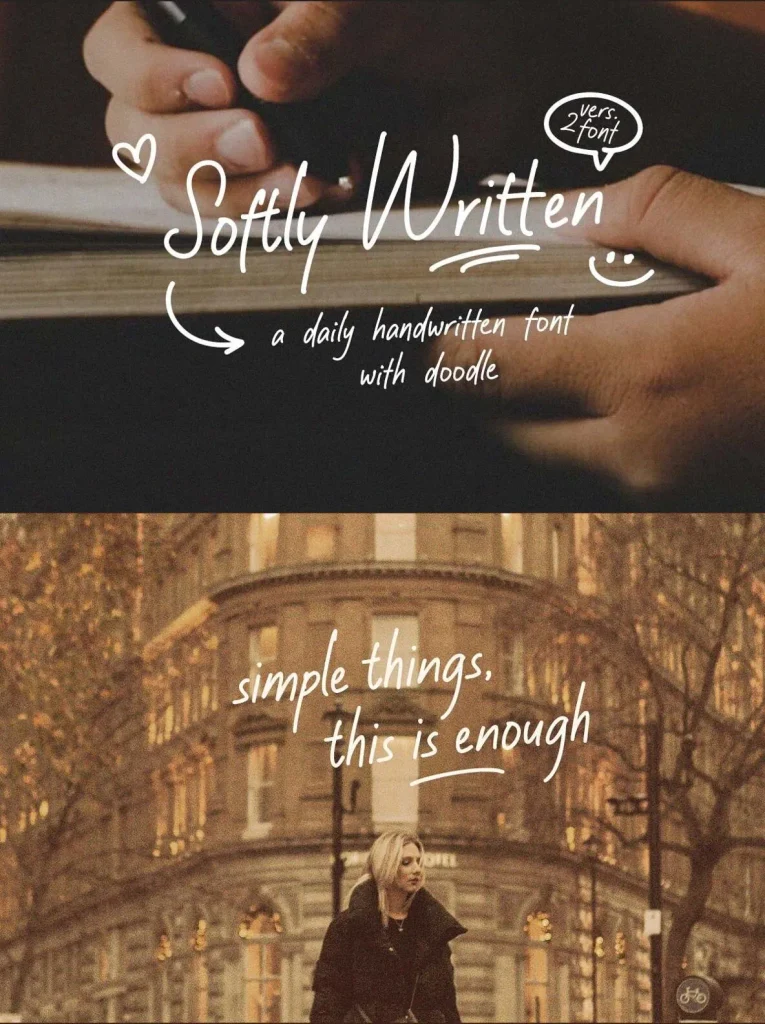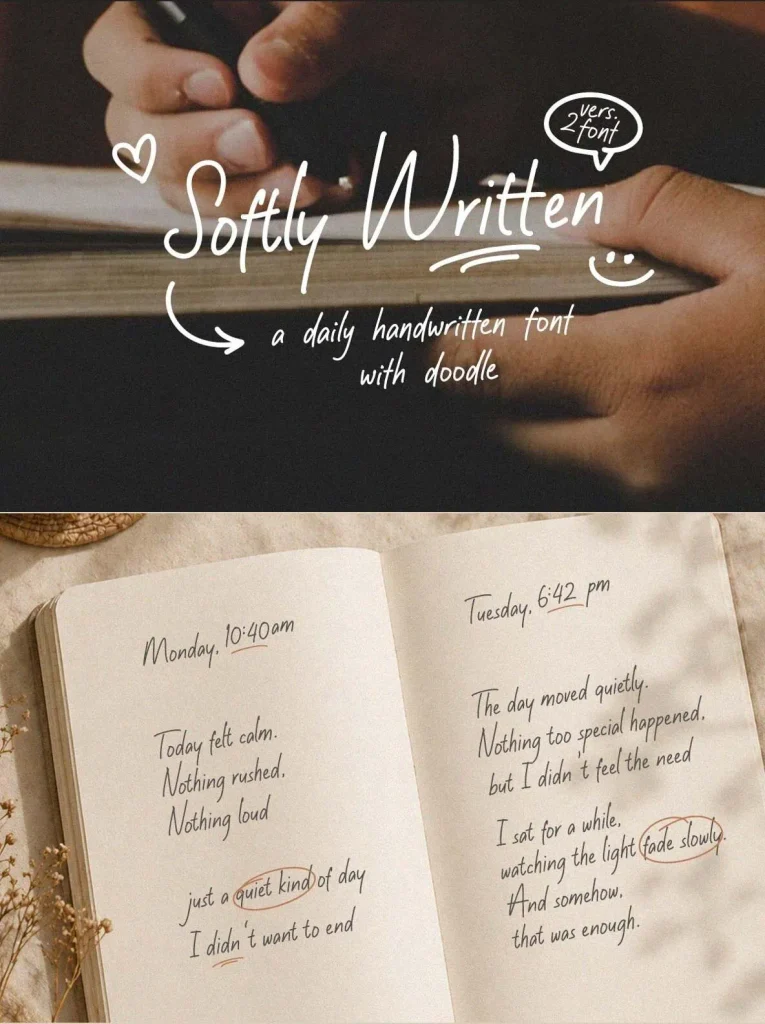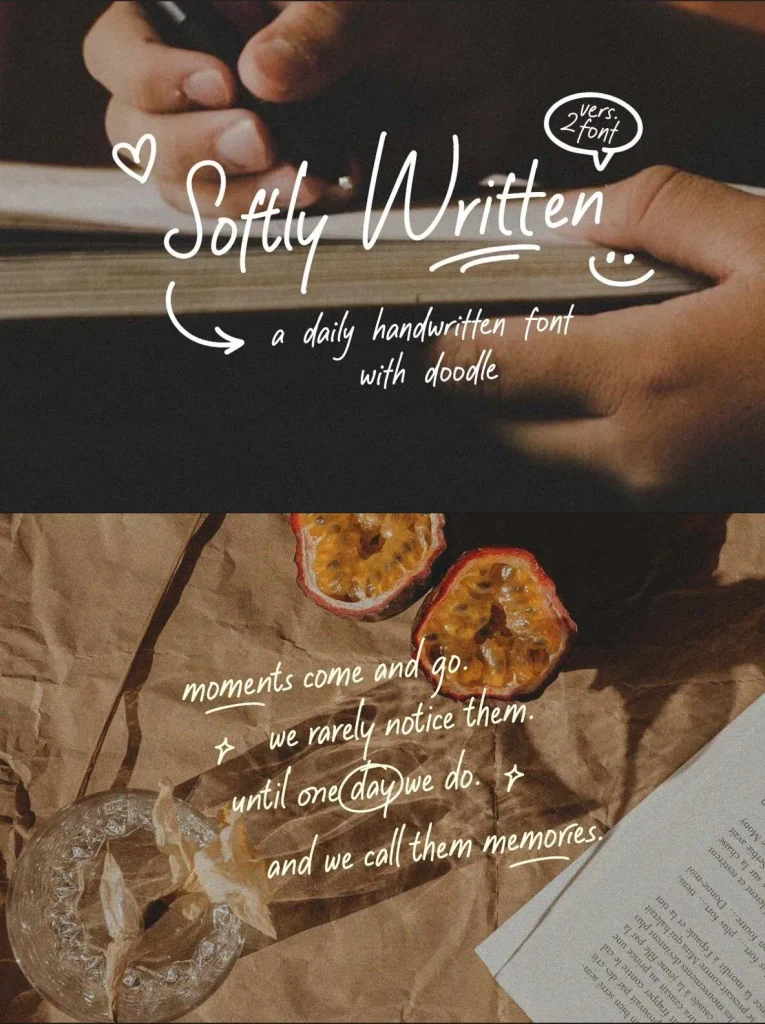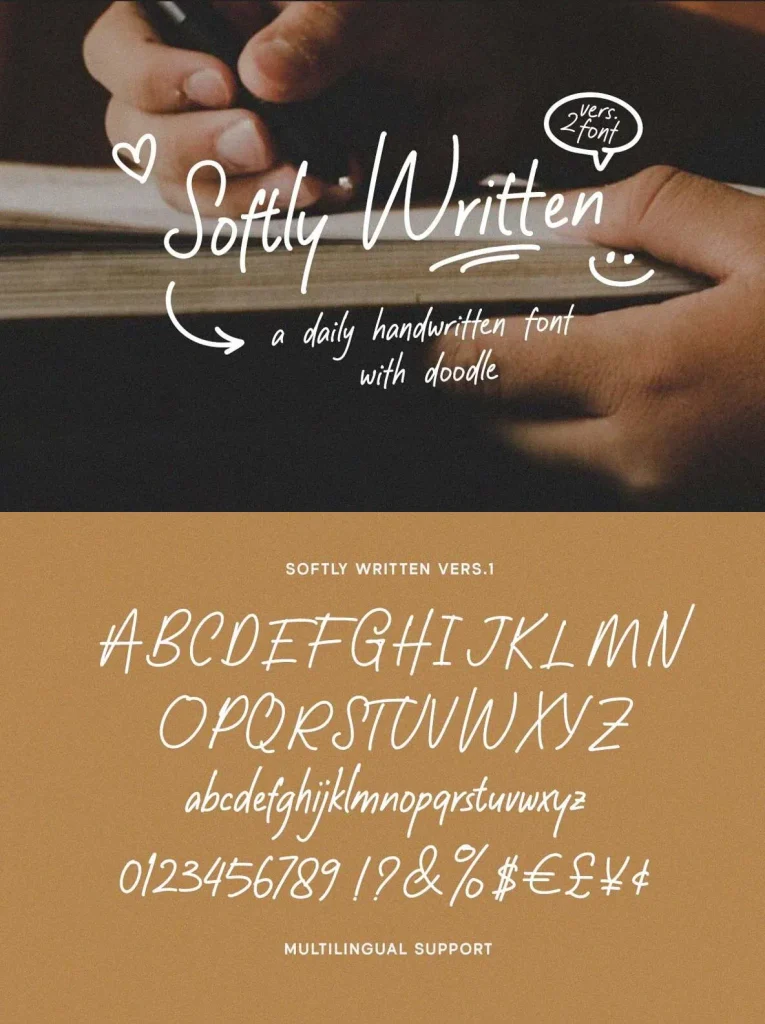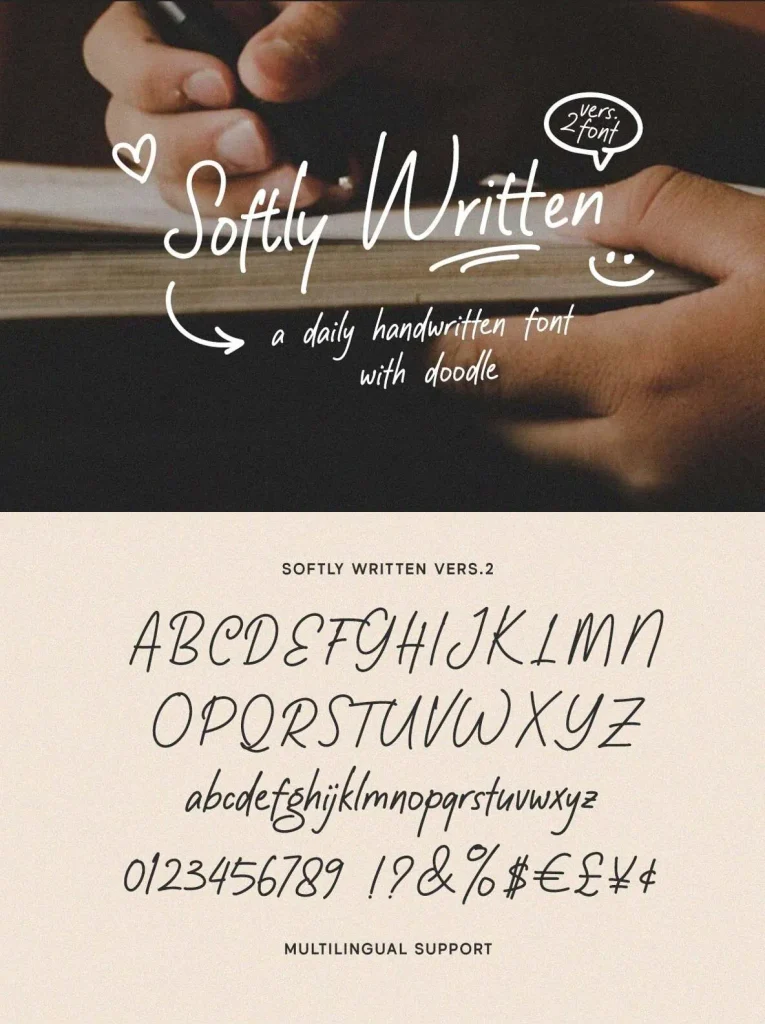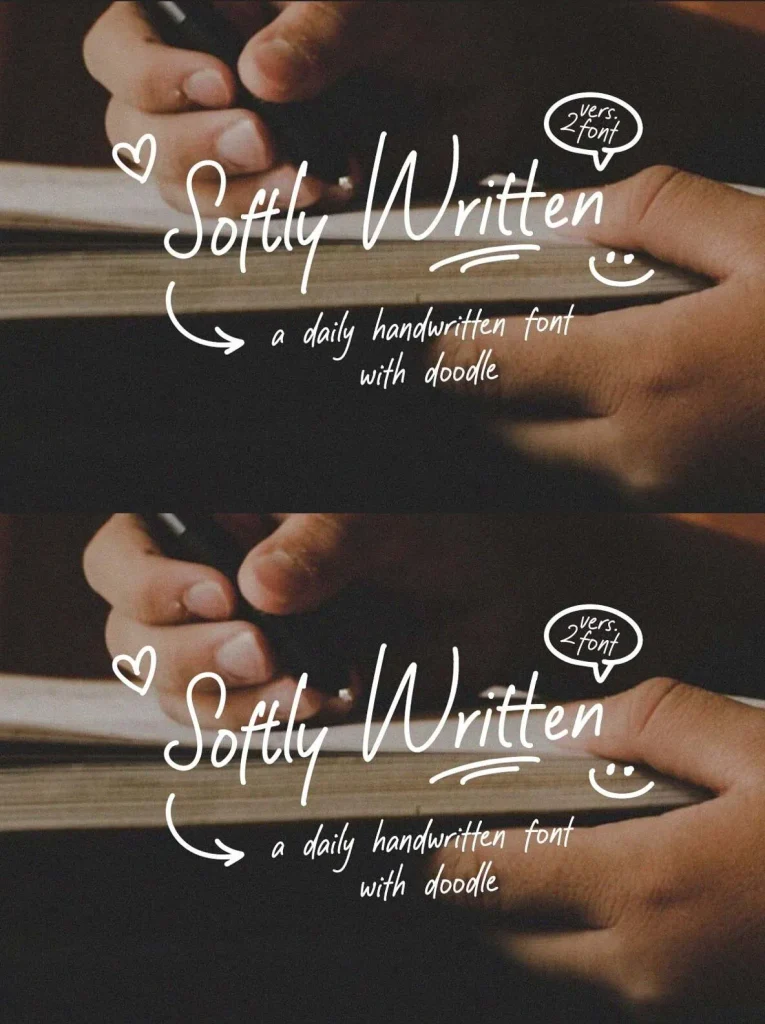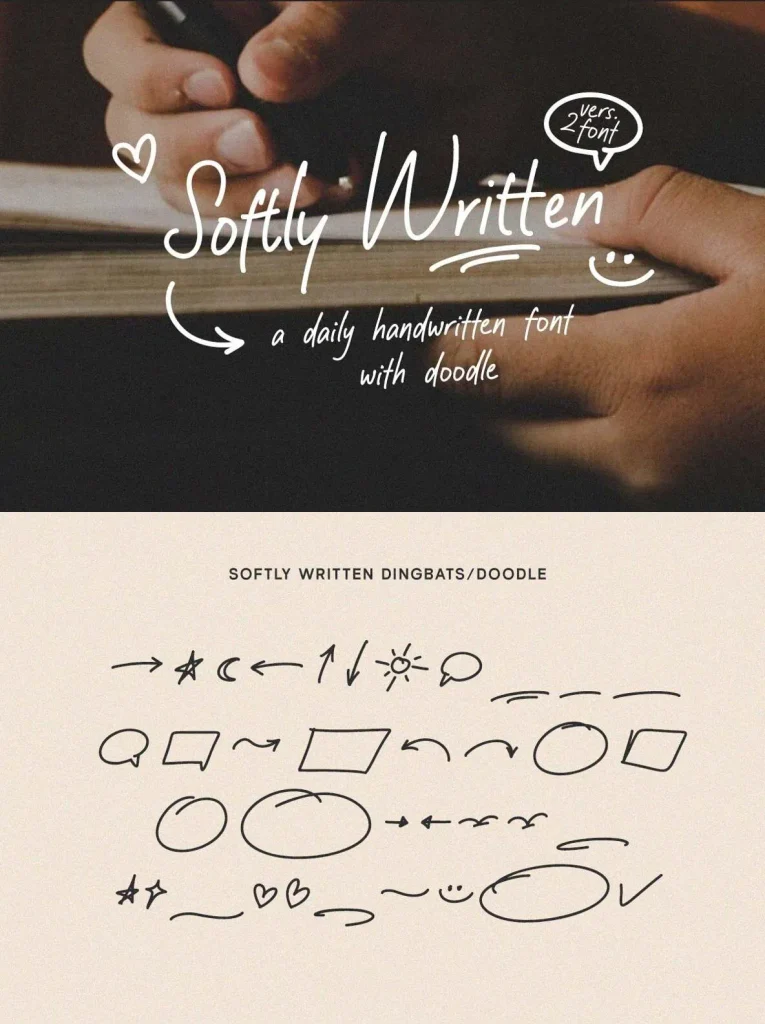
Softly Written — Cozy Notes in Type
Softly Written feels like little notes scribbled in a cozy journal. Its smooth handwritten strokes and playful doodles give every word a warm, friendly look. The letters flow with simple everyday charm, creating a cute, relaxed handwritten font style that feels honest, casual, and full of tiny happy moments.
This font suits designs that need a gentle personal tone without feeling overly polished. Its natural rhythm, soft character, and approachable lettering make text feel intimate and easy to read, while the included alternates and ligatures add variety to the handwritten appearance.
Uppercase & lowercase
Numbers and punctuation
Alternates & Ligatures
Multilingual Support